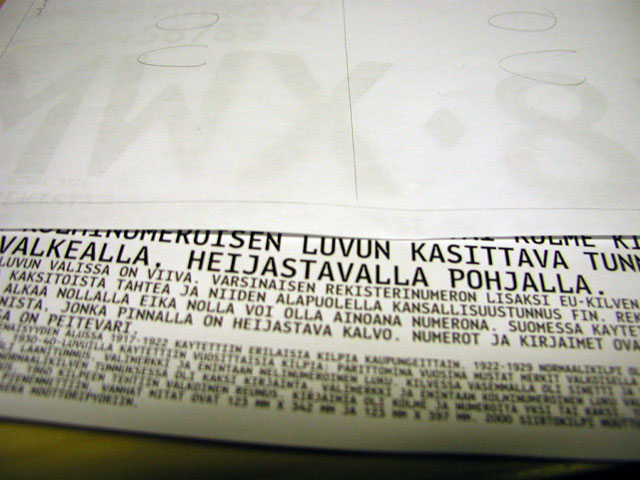
![]() ![]() ![]() carplate type basic info : thoughts and ideas : presentation half way : ![]() First, a story from inside the rock... Metal on metal The only plateshop in Finland produces ca. 50 000 licence plates per month. Need of the market shifts, but there is no need to lay off employees even in the most quiet periods: plates are manufactured in the prison of Helsinki, part of the city called Hermanni. 'Metalshop employs 40-50 people, licence plates two dozen and in addition we have men working on traffic signs.' tells Raimo Peltonen, head of the plateshop. Finnish licence plates are manufactured like this: A roll of aluminium and a roll of reflecting sticker with European union marking are driven together in the beginning of the manufacturing line. The slip then runs to the die-cutting and is sliced into plates (119 by 445 mm) with rounded corners.These pieces are carried to the next room where prisoners set metal-cast letters and numbers by hand into trays and punch-press the plates by machine force; licence plate now has identity, registration number of the finnish automobile registry embossed onto it. Embossed marks are not visible alone. Punch-pressed plates are put through heatstamping machine similar to large mangler along with roll of black paint which sticks to embossed parts that is, the numbers and the letters. Out comes instant-ready plate, the material and the paint are prefabricated to withstand weather and stress with no additional finishing. It's a fast-paced, noisy process! The Final Presentation After the last update, we started to look into the official finnish plate type that has been in use since around 1935, with minor modifications. Several problems with the spacing and the differing optical sizes from letter to letter tell a tale of engineer design; this has been a functional typeface, carved in metal and as such it has served well as long as no-one has put it under the microscope. Because of the punching techinique letters such as A are problematic: the narrow parts become easily too heavy (see illustration). We decided to use some intense trapping to get rid of this problem. The letter visibility was one of our main concerns. During the final testing the traps which were implemented keeping the industrial processes in mind proved to improve visibility as the white spaces are consecutively larger than in the finnish type. Our letterblock is not as high as the current, leaving more space over and below and resulting in optimal black/white balance. Although a limited workshop production, we feel that in Laatta Sans functionality, readability, attention to the processes of manufacturing and playfulness have been balanced out to create our vision of a sensible typeface for specific purpose. download laatta_sans.pdf ![]()
![]() 15 comments so far: read comments ![]() ![]() chester @ Thirstype.com -- Thursday, October 24 2002, 11:31 pm Like Meta's work for German number plates and Matthew Carter's Bell Centennial typefaces for telephone listings, LAATTA puts functionality over form. And balances the two quite well. The 'cohesiveness' of detail has necessarily been sacrificed in order to increase the differences between similar letters; this detracts from the beauty of the forms, but increases legibility, which is the primary concern. (Sorry beauty, we don;t need you right now.) The only glyph that was better handled in the past is the 5, which is very different from the S. The new 5 and S have similar architecture. The Q is obviously the trickiest of the characters. (I offer no suggestion; only that comment.) The O and the 0 are also a tricky situation. Outside of Scandinavia, it might be best to use a "slashed-0" for zero, but the Ø - O-slash - glyph is prevalent in Scandinavian languages, so would confuse the issue. So. On the whole, a success. chester again. -- Friday, October 25 2002, 12:02 am Oops. The German plate type wasn't done by Meta. In fact, it seems that Herr Spiekerman is not a fan of the type. I'm surprised by this, because I would think that any rigor of process and design would meet with his approval. Nevermind. I like it. Hrant H Papazian -- Friday, October 25 2002, 02:13 am I love it (but I have a weakness for shoving Beauty in the closet - she's such a primadonna, the #$&@*!). And don't think your divergent forms aren't harmonious - to me they actually satisfy a higher harmony than mere superficial form; there is a huge valley between looking at shapes and reading. And the "Q" is super: a friend you will never understand completely, but you trust him anyway. My only complaint is that the trapping seems inconsistent. hhp matthé -- Friday, October 25 2002, 10:37 am Carplatetype doesn't need to be legible: let cops figure out who they just flashed for speeding! - Always start from a consumer's point of view Sami -- Friday, October 25 2002, 11:42 am Ah, every citizen is a consumer: the carplate is just like the bar code pasted in a banana. Everyone needs this information; while the dad is driving to a summer cottage the children in a back seat entertain themselves by catching different register plates... Christian @ Orange Italic -- Friday, October 25 2002, 01:32 pm i'm with chester on the 5/S issue - one of the most useful ways to proof a typeface with a final purpose like this is to take it into photoshop and blur the hell out of it. i think you'll find that 2 and Z might need to get a bit more difference between them as well. i don't know what the best solution is for O and 0. some american license plates make letters and numbers a different height (presumably to get around this), but i think you can do it with less. very nice solution on the E & F and P & R to make it impossible to turn one into the other. i like the confident way you've put the inktraps in, but i would suggest pointing the ones on the NMW more into the corner and not into the vertical strokes - you need to carve weight out there, but you need to make sure you're carving it out where it needs it most. very nice work. Kvantti -- Friday, October 25 2002, 01:59 pm Thank you for all the feedback! We will be working on this for some time still, putting punctuation marks etc in and filing some characters. We'll probably also be sending this to the finnish automobile registry, let's see what they'll have to say about it :) hugo@visionandfactory.com -- Friday, October 25 2002, 04:23 pm I like the research of this workshop and the story how these Finnish carplates are manufactured. The way you all tried to actualize these plates is quite clever. Here in Belgium people are driving around in "Mistral' typefaced carplates. Or even worse. So why not try the 'Trixie' from Erik and Just? Sorry, I very much apprciate the work you all did but maybe it is a little bit cool for me. Best regards. Hugo Puttaert http://www.visionandfactory.com Jean F Porchez -- Sunday, October 27 2002, 08:49 pm I’m with Matthé comment on this. For long time, I think its the last subject to work on. Don’t help the police please. Thanks. :-) jacques le bailly -- Tuesday, October 29 2002, 11:47 am I am not with matthé, jean, functional can (and should) look good. Even if this means being readable at 210 Km/h! Compared to other known carplate fonts, this one is a very good combination between looks and functionality. i like it. Reacted way too late... http://www.baronvonfonthausen.de/ Bas -- Tuesday, October 29 2002, 01:37 pm Don't worry Jacques, you didn't comment too late. Students will come back to this place, also after the presentation. So please, keep on commenting. Eero -- Wednesday, October 30 2002, 10:46 am I just want to comment on the 5 vs. S and O vs. 0 problem, since no one has yet pointed this out: the carplates in Finland always have the letters on the left and numbers on the right side. So at least in Finland these won't be a source of confusion. Of course the optimal carplate type will work also in the situation where numbers and letters are mixed. Hiomista riittää. Sami -- Friday, November 1 2002, 11:41 am Hi Markus, Eero and Antti. Is there any reactions from the Finnish Automobile Registry? Do you still have some power left for this project? Check the top corners of the 'M', looks quite unbalanced... and how are the a and o umlauts (ä and ö), and a with the ring? These small details will make the type even more convincing for this F.A.R authoroty! Let's make an update for your project with ten new pictures and text about the reaction of F.A.R. Deadline next week Friday, 8th November? Sami -- Monday, March 17 2003, 05:37 pm Laatta Sans has joined 'Kirjoituksen lumo' exhibition, which takes place in the University of Helsinki's library during 18.3. - 31.5.2003. So see the latest stage of Laatta Sans at: http://www.lib.helsinki.fi/ajankohtaista/nayttelyt/Kirjoituksen_lumo/Carplate.htm or go to see it in exhibition! Jimi -- Friday, March 28 2003, 03:30 pm Wow ![]()